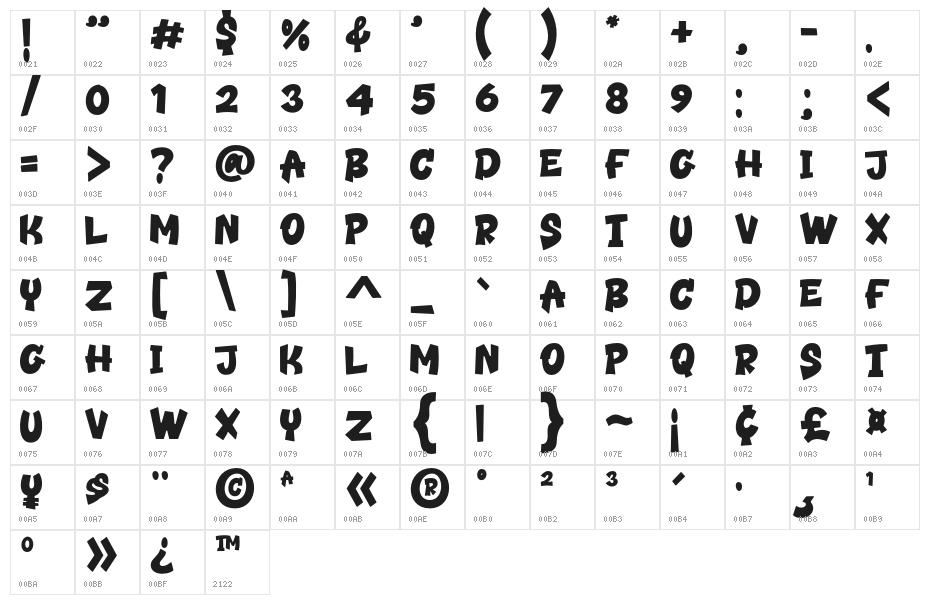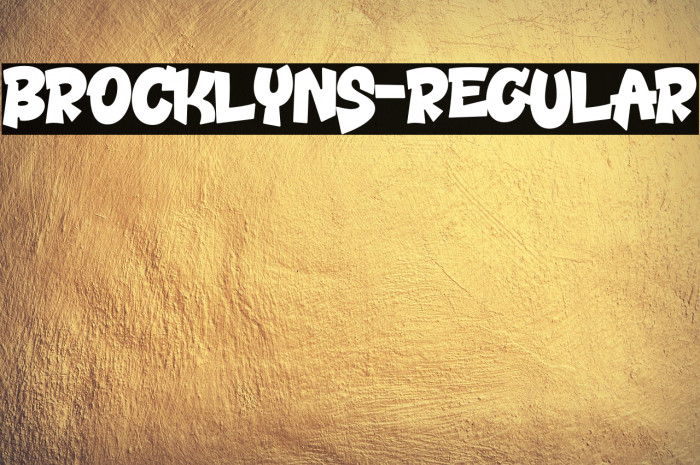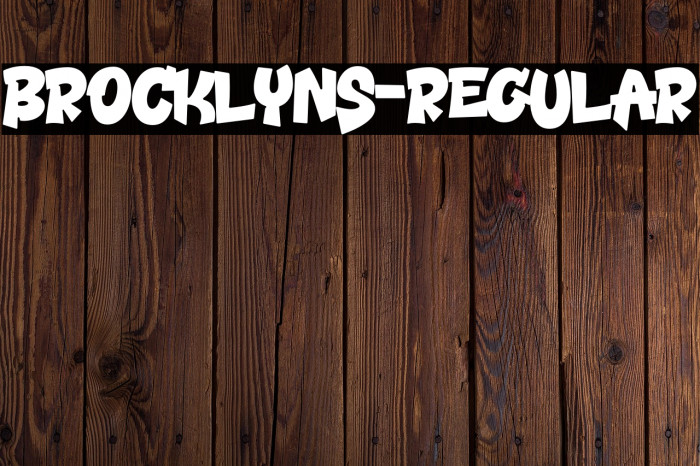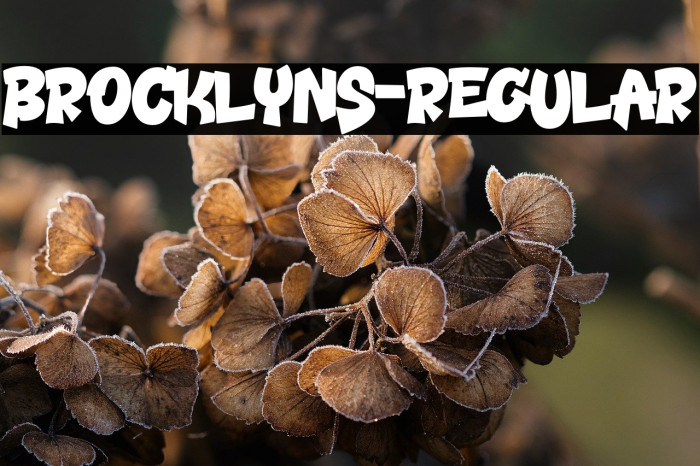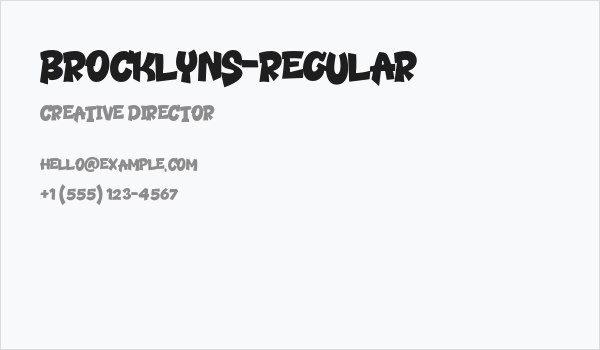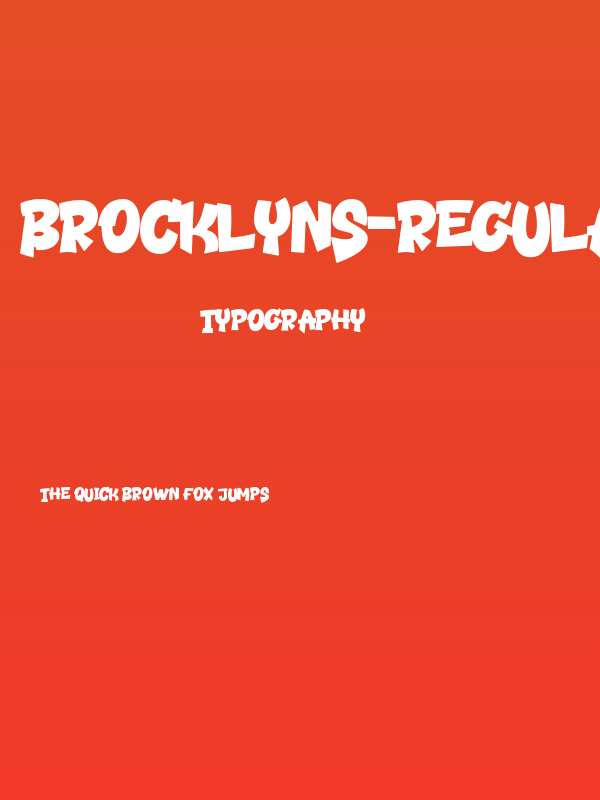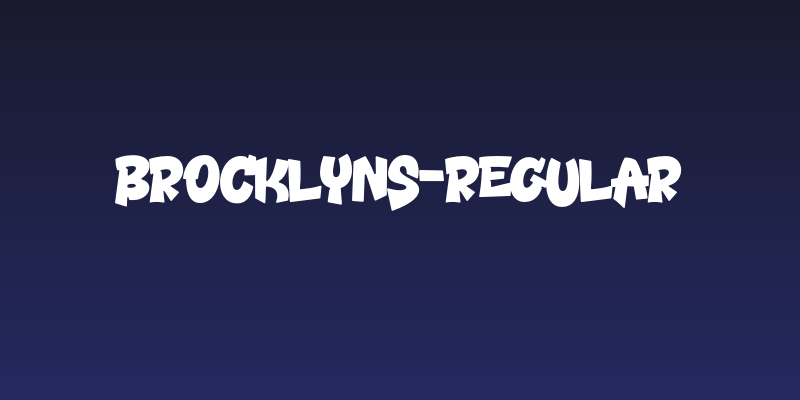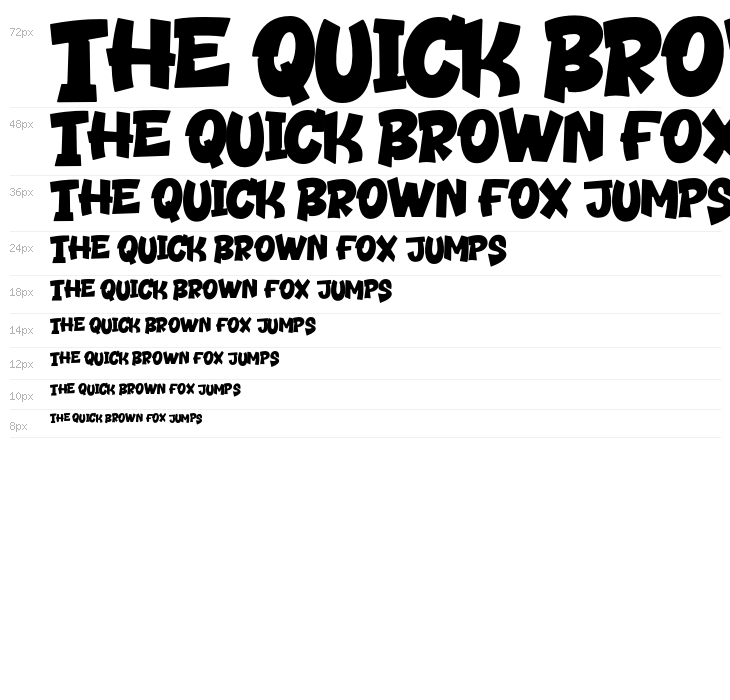
Brocklyns-Regular Font
Brocklyns-Regular Description
This font features a bold and playful style with exaggerated curves and a slightly irregular baseline, giving it a dynamic and energetic appearance. The characters are thick and robust, with a cartoonish flair that makes them stand out. The uppercase and lowercase letters maintain a consistent weight, while the numbers and special characters are designed to match the overall whimsical aesthetic. The font's unique style is ideal for projects that require a fun and engaging visual impact.
| Overall Style | Playful, Cartoonish, Energetic |
| Use Case | Headlines, Posters, Branding |
| Proposed Projects | Ideal for children's books, comic strips, playful branding, and eye-catching posters. |